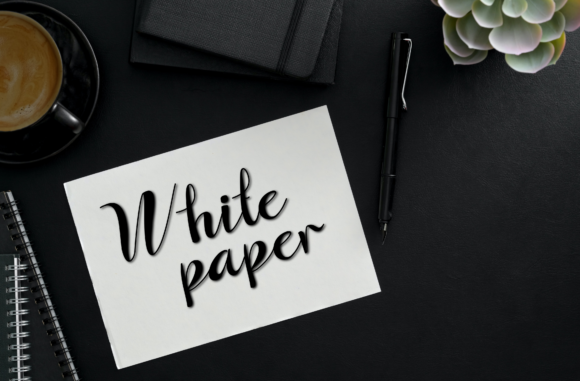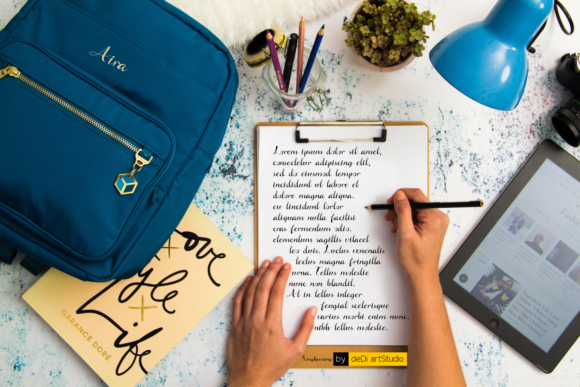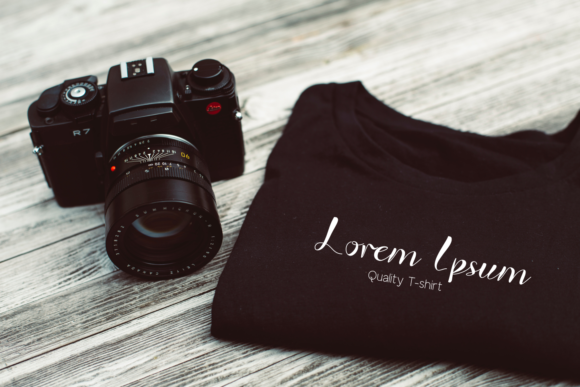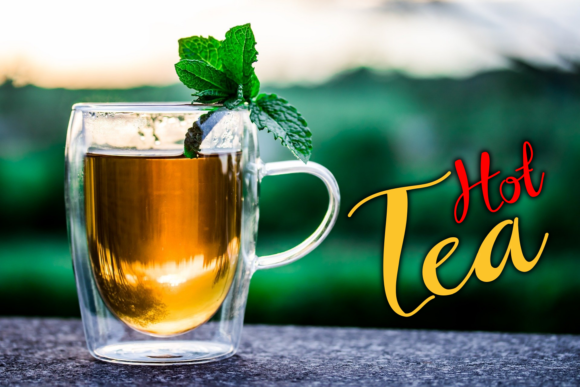
Introduction to SignFly Font
Signfly is a beautiful handwritten font.
It’s a mix of timeless elegance and authentic calligraphy It features a very classic style.